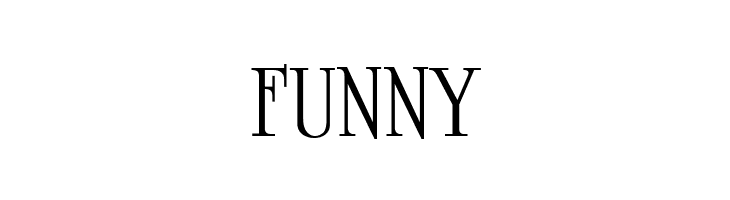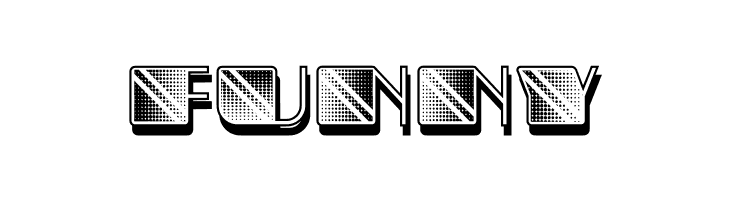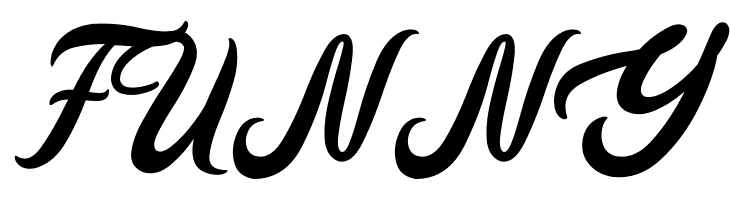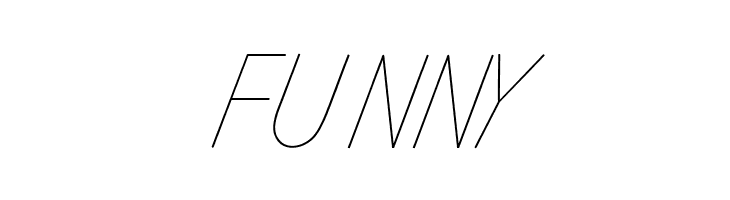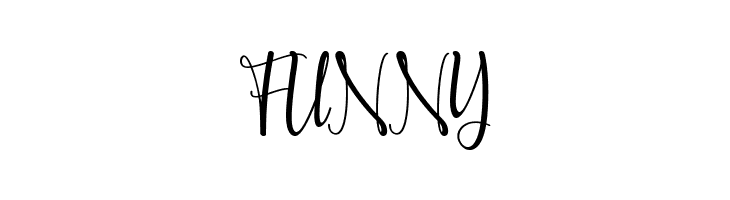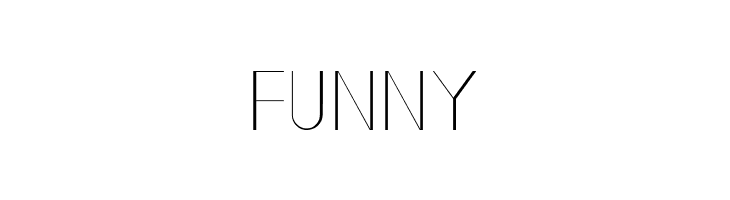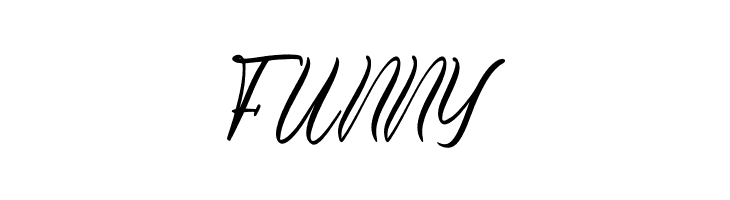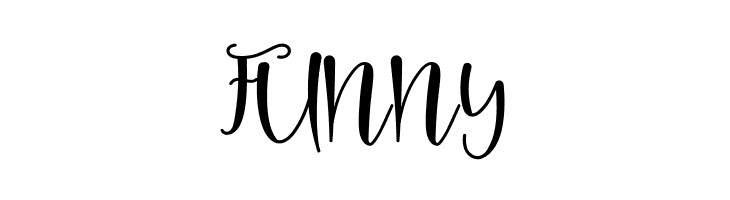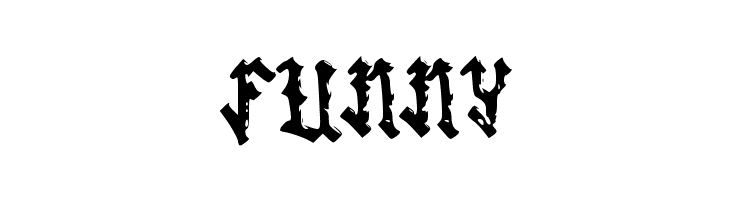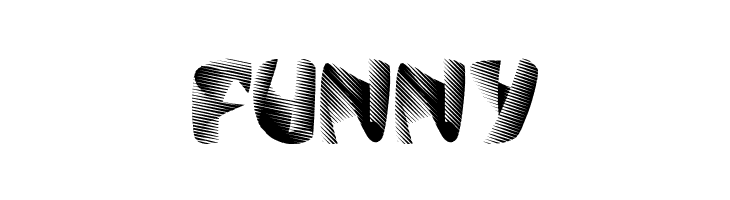
A playful and elegant handwritten script font with flowing cursive lines.
A decorative script font with elegant loops and swirls.
A bold, brush-style font with dynamic strokes and a modern, artistic flair.
A bold, brush-style font with dynamic, expressive strokes.
A sleek, modern script font with thin, elegant strokes.
A bold, decorative font with a 3D effect and textured interior.
A modern, minimalist font with thin, uniform strokes and excellent readability.
A bold, geometric font with sharp edges and a modern style.
A classic serif font with elegant, slender characters and distinct serifs.
A bold, dramatic blackletter font with intricate Gothic detailing.
A modern, clean sans-serif font with uniform stroke width and excellent readability.
A bold, modern sans-serif font with clean lines and strong readability.
A bold, italicized sans-serif font with a modern and clean design.
A modern, italic sans-serif font with medium contrast and normal spacing.
A modern, clean typeface with excellent readability and versatility.
A modern serif font with clean lines and balanced proportions.
A classic serif font with elegant strokes and refined serifs.
A bold, geometric outline font with a futuristic and dynamic style.
A bold, slanted script font with a dynamic and textured appearance.
A bold, modern font with rounded edges and a slightly condensed form.
A bold, rounded font with a modern and impactful style.
A modern, slightly italicized font with smooth curves and consistent stroke width.
A flowing, cursive script font with elegant, connected strokes.
A bold, flowing script font with elegant curves and a cohesive style.
A modern, elegant script font with flowing, cursive characters.
A playful, casual handwritten font with a dynamic and informal style.
A lively and elegant handwritten script font with bold uppercase and smooth lowercase letters.
A flowing, cursive font with elegant, connected letters and a calligraphic style.
A playful, handwritten cursive font with a casual and energetic style.
A playful and elegant script font with flowing, cursive design.